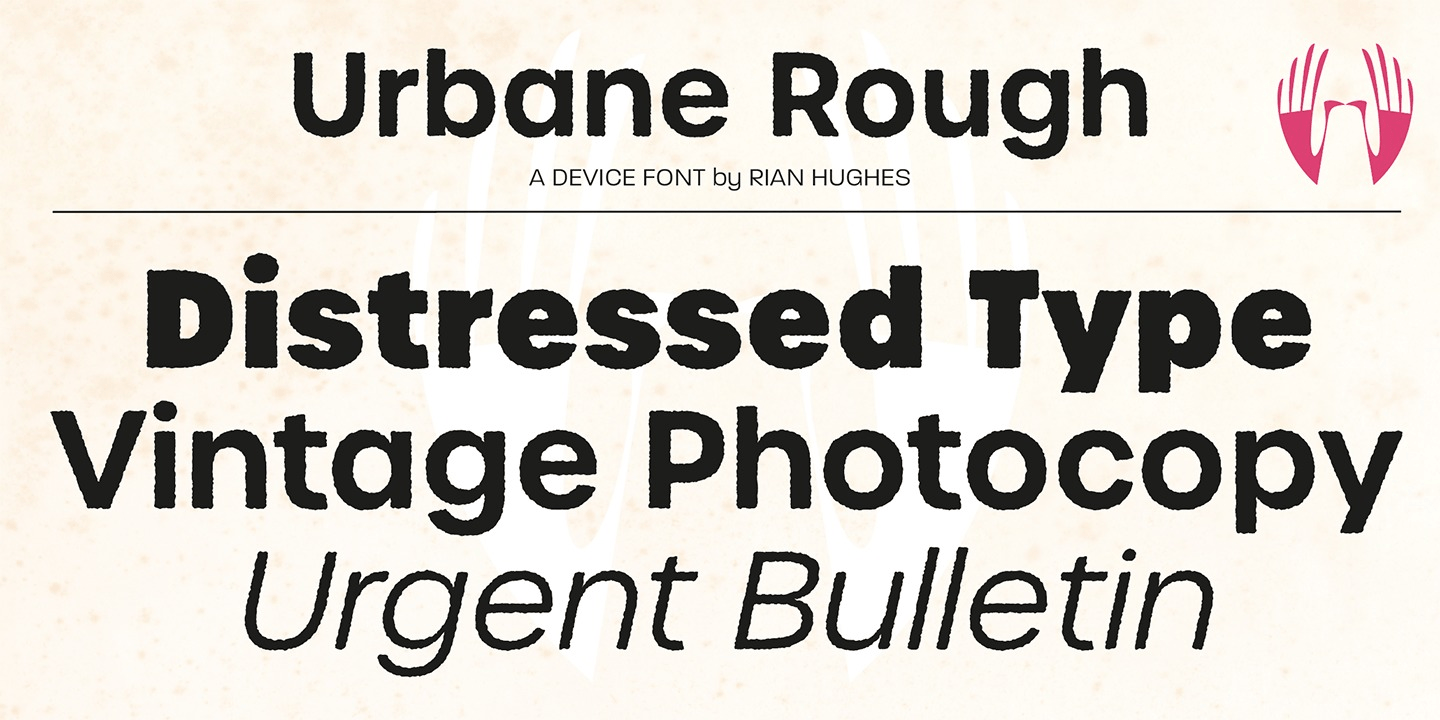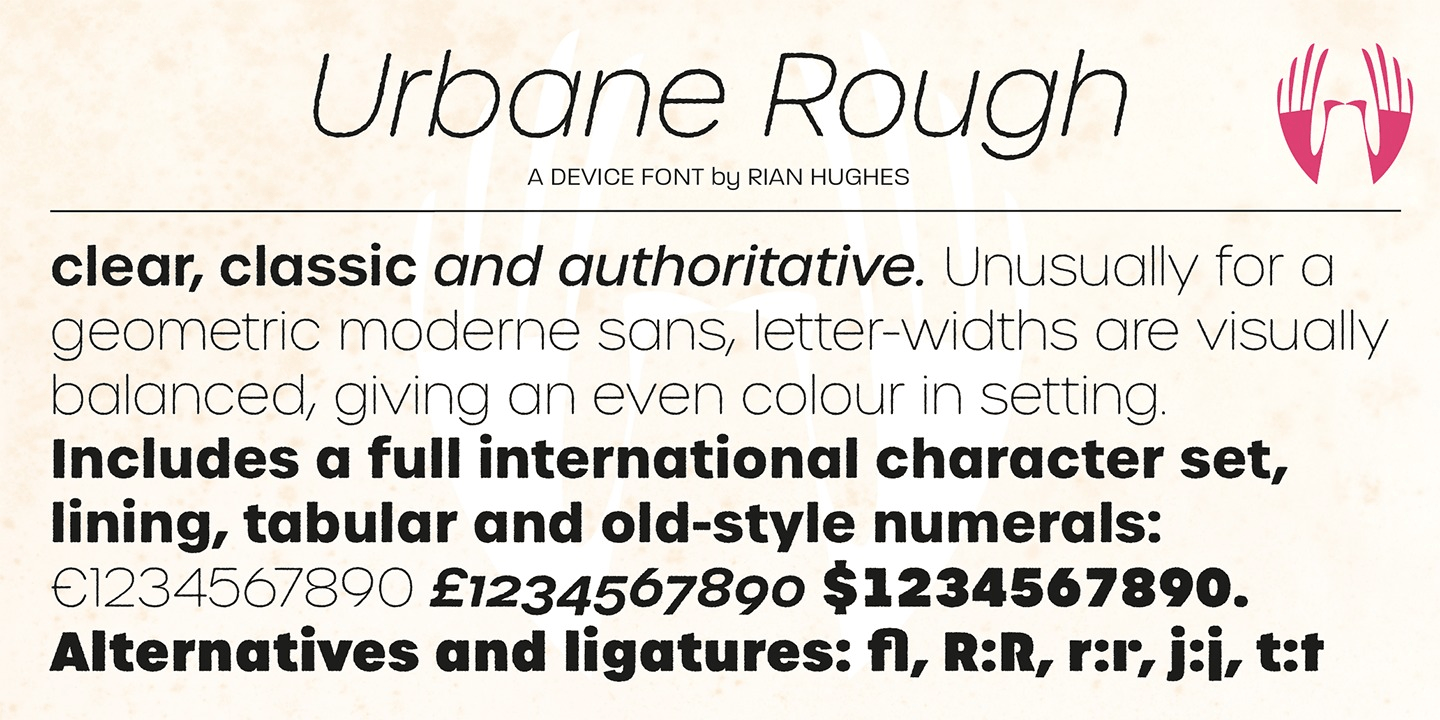
About Urbane Rough
Urbane Rough is a distressed version of Urbane, giving it an urgency and immediacy reminiscent of photocopied flyers or inky printing. A versatile all-purpose sans-serif family of six weights plus italics, it explores the same idea-space as early geometric…